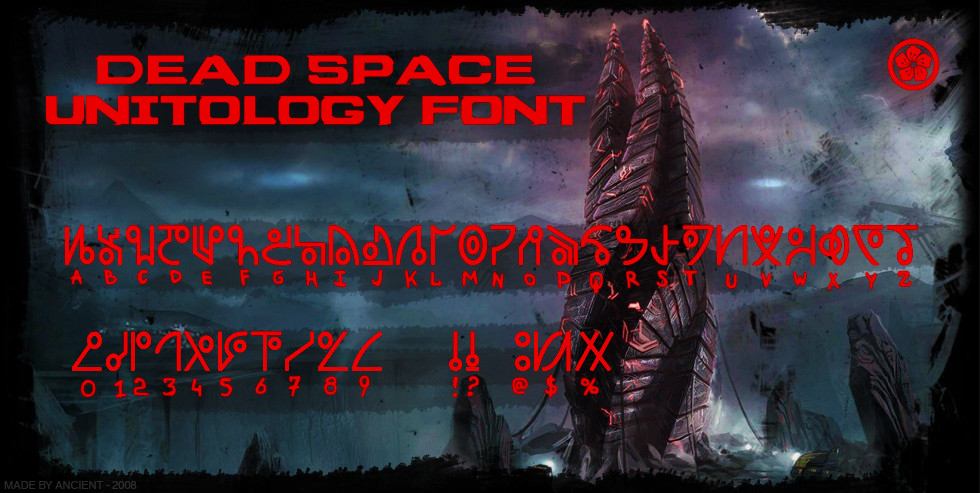
This is the Unitology font from original Dead Space video game.
This font includes all 26 (ENG) symbols from A-Z, upper and lower case, as well as numbers from 0-9, Question mark (?), Exclamation point (!) and special symbols DBL LTR, SS and TH.
Note: This font contains special symbols - DBL LTR, SS and TH, however because I cannot make them work as a combination of letters without the use of IME's I have assigned them to "@", "$" and "%" respectively.
The unitologist script doesn't have a "0" but instead has "10", but due to the reason mentioned above I cannot make "10" work as a key combination so the symbol that represents "10" represents "0" in this font.
This font is styled.